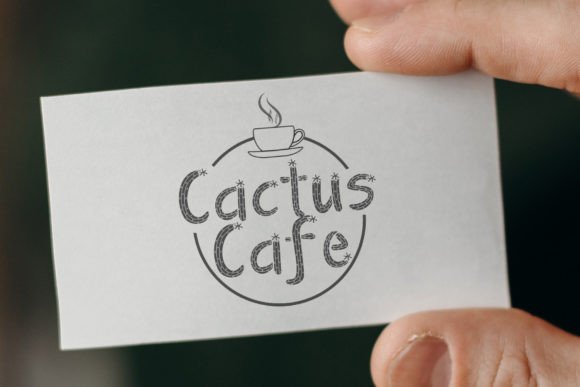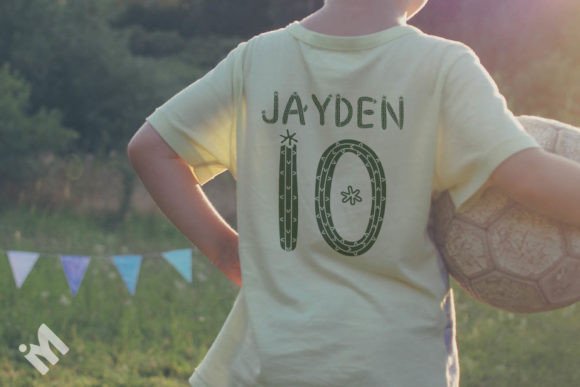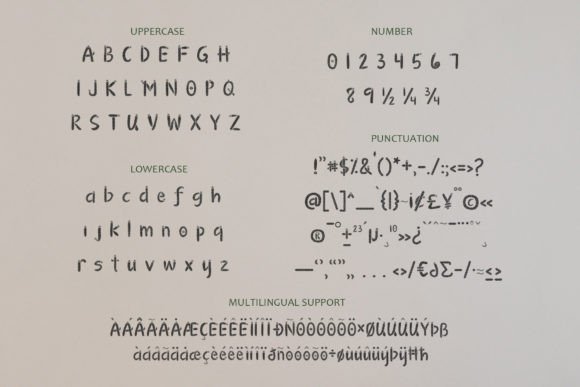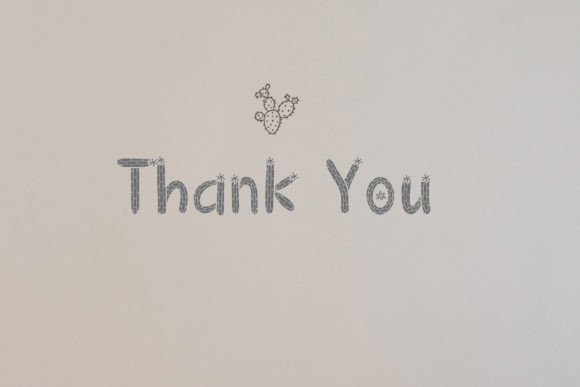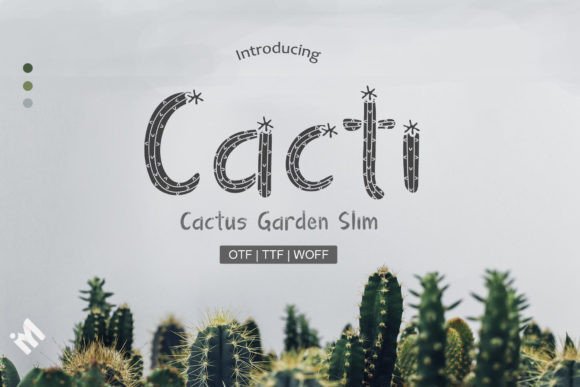
Cacti Font: Add a Touch of Cheerfulness to Your Designs with Cactus Garden Slim
Are you tired of using the same old fonts in your designs? Do you want to add a touch of whimsy and playfulness to your branding, packaging, or social media posts? Look no further than Cactus Garden Slim, a funny decorative font that’s sure to bring a smile to your audience’s faces. In this article, we’ll dive into the world of Cacti fonts, explore the features of Cactus Garden Slim, and discuss how you can use it to elevate your designs.
The Charm of Cacti Fonts
Cacti fonts have become increasingly popular in recent years, and it’s easy to see why. These fonts are inspired by the prickly yet charming cactus plant, which has become a symbol of modern design. Cacti fonts are perfect for designers who want to add a touch of desert chic to their work. They’re playful, fun, and instantly recognizable.
Introducing Cactus Garden Slim
Cactus Garden Slim is a decorative font that’s designed to bring cheerfulness to your designs. This font is perfect for use on a variety of projects, including:
- Branding and/or logomarks
- Merchandise
- Apparel
- Packaging
- Stationery
- Invitations
- Social media posts
With Cactus Garden Slim, you can add a touch of whimsy to your designs and make them stand out from the crowd. This font is designed to be eye-catching and playful, making it perfect for projects that need to pop.
Features of Cactus Garden Slim
Cactus Garden Slim has a range of features that make it the perfect font for designers. Some of its key features include:
- Fun and playful design
- Perfect for use on a variety of projects
- Instantly recognizable
How to Use Cactus Garden Slim in Your Designs
Using Cactus Garden Slim in your designs is easy. Here are a few tips to get you started:
- Use it as a headline font to add a touch of whimsy to your designs
- Pair it with a sans-serif font for a modern look
- Use it on social media posts to add a touch of personality
- Experiment with different colors and textures to make it pop
If you’re a designer or crafter looking to use Cactus Garden Slim in your work, here are a few tips to keep in mind:
- Experiment with different font sizes and styles to find the perfect look for your project
- Use Cactus Garden Slim in combination with other fonts to create a unique look
- Don’t be afraid to get creative and try new things
| Font Name | Cacti Font |
| Author | iyhulmonsta |
Cactus Garden Slim is a fun and playful font that’s perfect for designers who want to add a touch of cheerfulness to their work. With its whimsical design and range of uses, this font is sure to become a favorite in your design arsenal. Whether you’re working on a branding project, packaging design, or social media post, Cactus Garden Slim is the perfect choice. So why not give it a try and see how it can elevate your designs?
Key Takeaways
- Cactus Garden Slim is a funny decorative font that’s perfect for adding cheerfulness to your designs
- This font is perfect for use on a variety of projects, including branding, packaging, and social media posts
- Cactus Garden Slim has a range of features, including a fun and playful design, ease of use, and instant recognizability